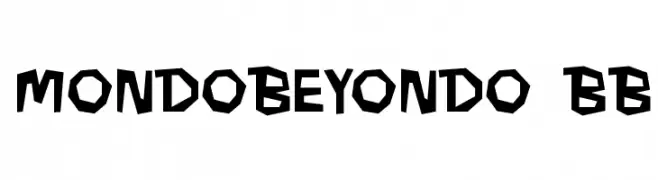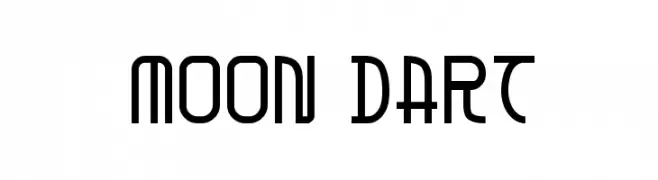
• MondayNormalAl
A playful, bold handwritten font with a casual and friendly style.
• MondayOutlineAl
A playful, bold outline font with a cartoonish style.
• MondoBeyondo BB
A bold, angular font with a geometric and edgy style.
• MondoBeyondo BB Bold
A bold, geometric font with playful and dynamic characters.
• MondoBeyondoBB
A bold, playful font with irregular, angular characters and a hand-cut appearance.
• MondoBeyondoBB-Bold
A bold, decorative font with angular, playful shapes and thick strokes.
• monos frekis
Playful, illustrated character-based font with a quirky, hand-drawn style.
• Monterey
A pixelated, retro-style font with a blocky, geometric design.
• Monterey Bold
A bold, pixelated font with a retro digital aesthetic.
• Moon Dart
A futuristic, geometric font with clean lines and a modern aesthetic.